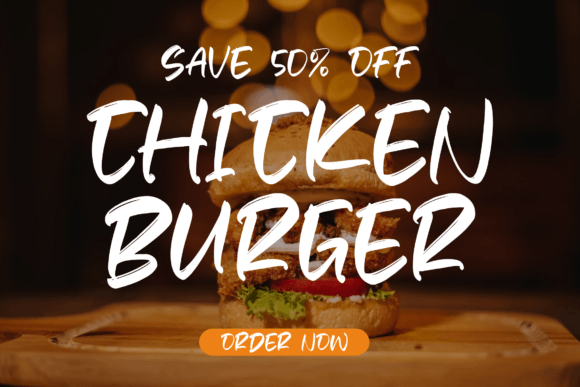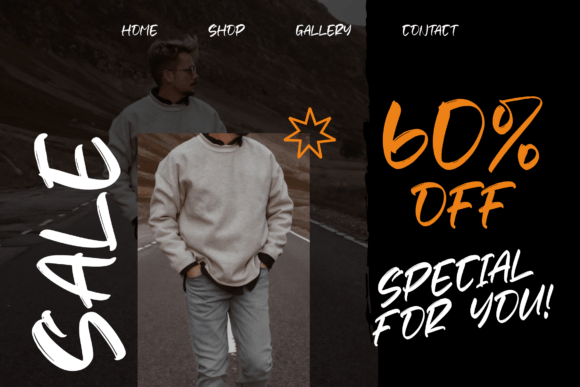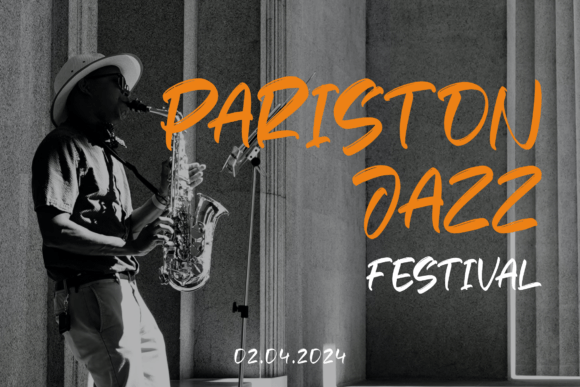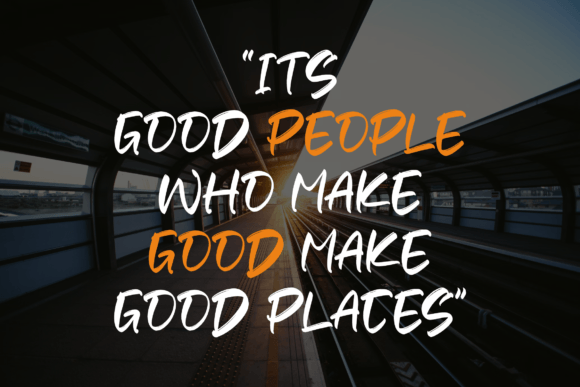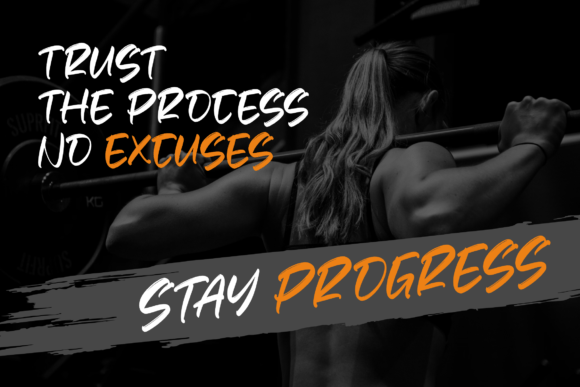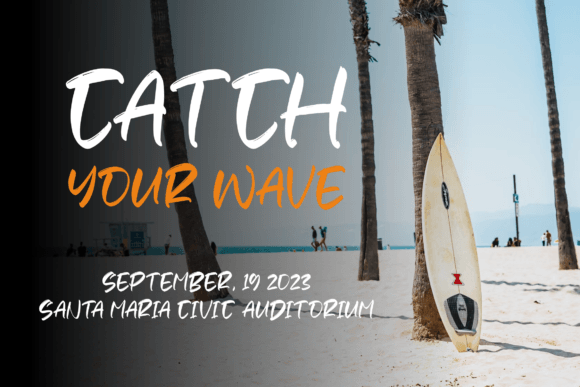
Introducing Badrick Font: The Modern Brush Handwritten Font for Creative Projects
Are you a designer or crafter looking for a unique and beautiful font to elevate your projects? Look no further than Badrick Font, a modern brush handwritten font that is perfect for a wide range of creative endeavors. From logos and branding projects to homeware designs, product packaging, and more, Badrick Font is the ideal choice for anyone seeking a stylish and sophisticated script taste.
What is Badrick Font?
Badrick Font is a modern brush handwritten font that is designed to bring a touch of elegance and sophistication to your projects. With its smooth, flowing lines and natural, hand-brushed texture, this font is perfect for creating beautiful and eye-catching designs. Whether you’re working on a logo, a poster, or a product label, Badrick Font is sure to make your project stand out.
What Can I Use Badrick Font For?
Badrick Font is incredibly versatile and can be used for a wide range of creative projects, including:
- Logos and branding projects: Create a unique and memorable logo for your business or brand with Badrick Font.
- Homeware designs: Add a touch of elegance to your homeware designs, such as ceramics, textiles, and more.
- Product packaging: Make your product packaging stand out with Badrick Font, perfect for labels, cartons, and more.
- Mugs and drinkware: Create beautiful and functional designs for mugs, water bottles, and other drinkware.
- Quotes and posters: Add a touch of inspiration to your quotes and posters with Badrick Font.
- Shopping bags: Create stylish and eco-friendly shopping bags with Badrick Font.
- T-shirts and apparel: Design beautiful and unique T-shirts, hoodies, and other apparel with Badrick Font.
- Book covers and stationery: Add a touch of sophistication to your book covers, journals, and other stationery.
- Name cards and invitation cards: Create elegant and memorable name cards and invitation cards with Badrick Font.
- Greeting cards and labels: Design beautiful and heartfelt greeting cards and labels with Badrick Font.
- Photography and watermarks: Add a touch of style to your photography with Badrick Font, perfect for watermarks and more.
- Special events: Create unique and memorable designs for special events, such as weddings, birthdays, and more.
Why Choose Badrick Font?
There are many reasons why Badrick Font is the perfect choice for your creative projects. Here are just a few:
- Unique and stylish: Badrick Font is a one-of-a-kind font that will add a touch of elegance and sophistication to your projects.
- Versatile: Badrick Font can be used for a wide range of creative projects, from logos and branding to homeware designs and more.
- High-quality: Badrick Font is a high-quality font that is designed to produce beautiful and crisp results.
Tips for Using Badrick Font
Here are a few tips for getting the most out of Badrick Font:
- Experiment with different sizes and colors: Badrick Font looks great in a variety of sizes and colors, so don’t be afraid to experiment and find the perfect combination for your project.
- Pair with other fonts: Badrick Font pairs well with a variety of other fonts, so try combining it with other fonts to create a unique and interesting look.
- Use for headlines and titles: Badrick Font is perfect for headlines and titles, so try using it to add a touch of elegance and sophistication to your designs.